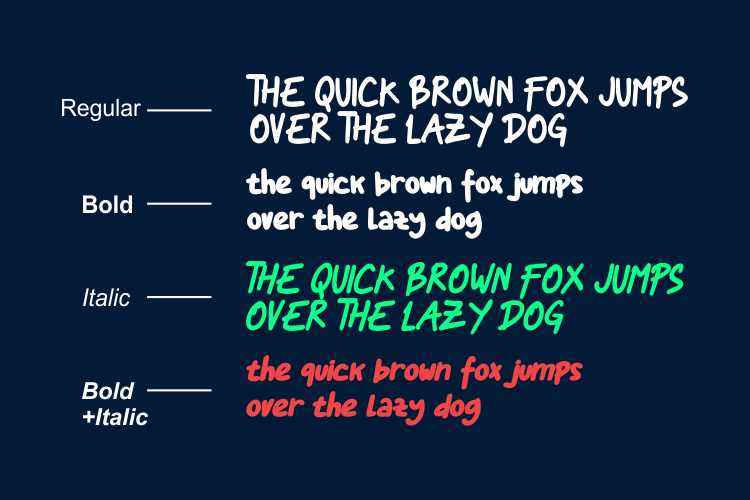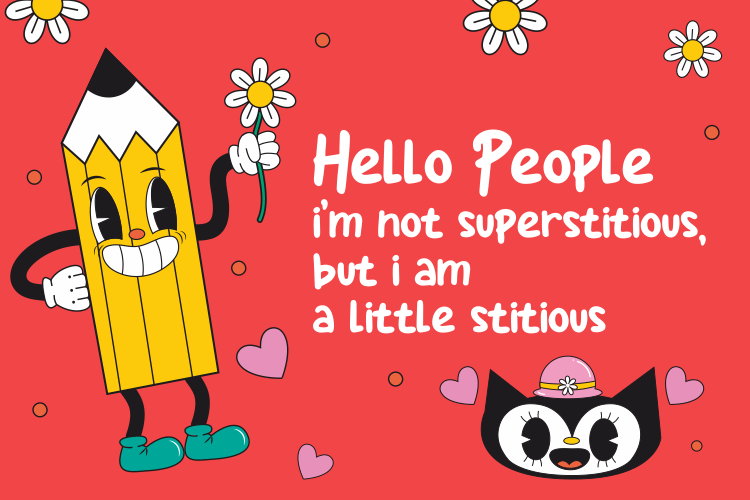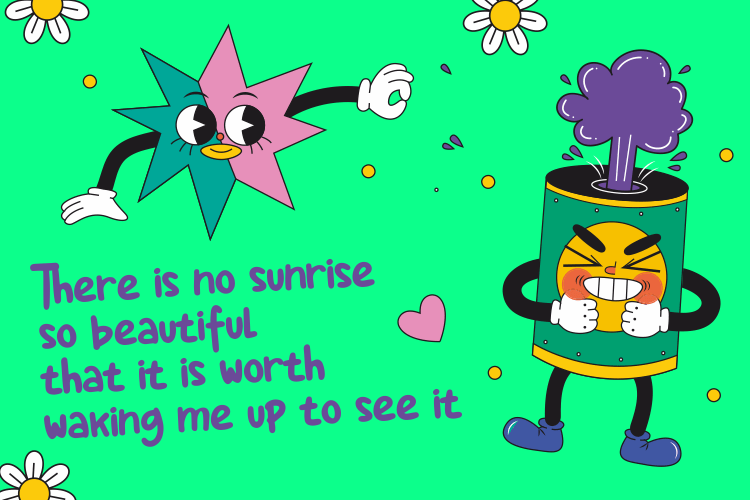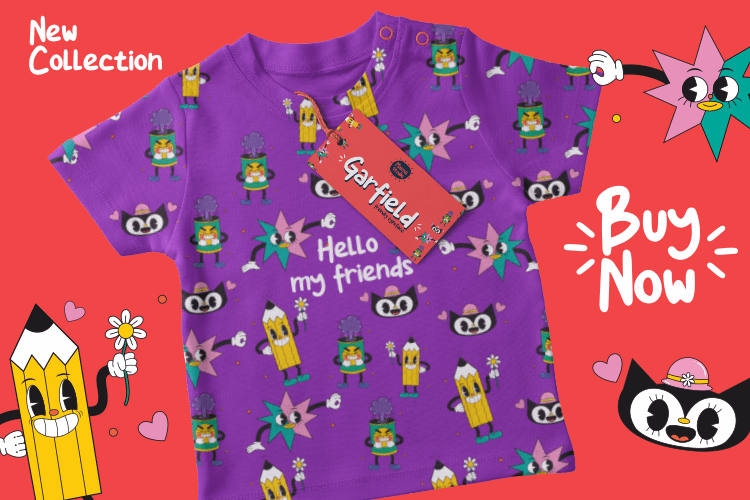
Garfield Display Font
It’s perfectly for children books story, funny T-shirt, Kids meal package product design, logotypes with fun style and much other, where used comic cartoon or simple fun graphic. we make some design examples, so you can see how it works.